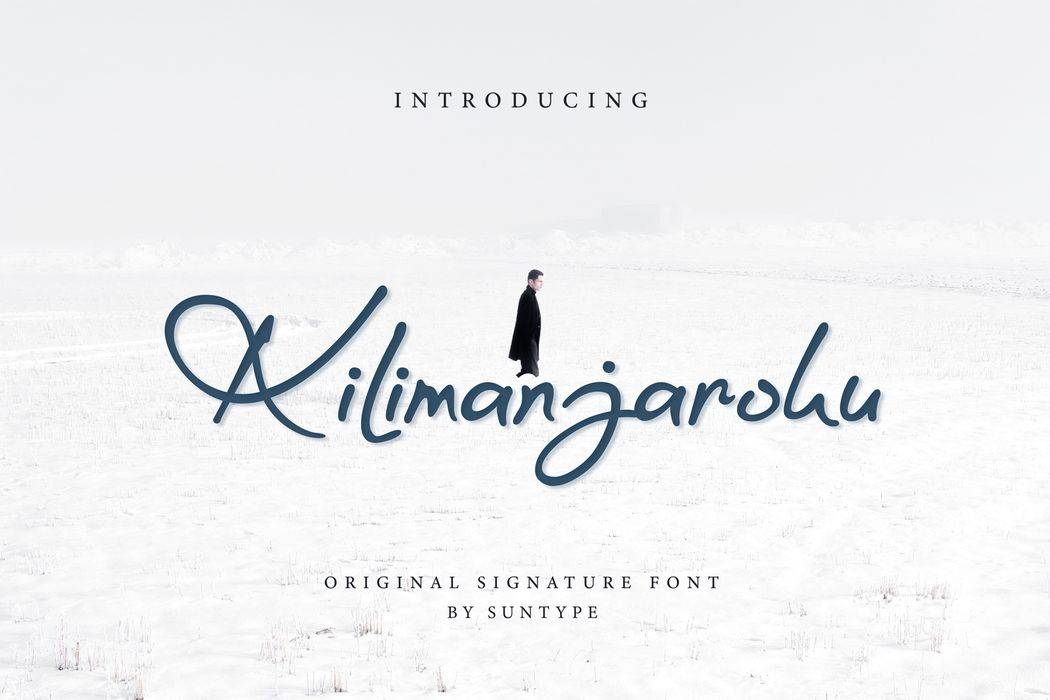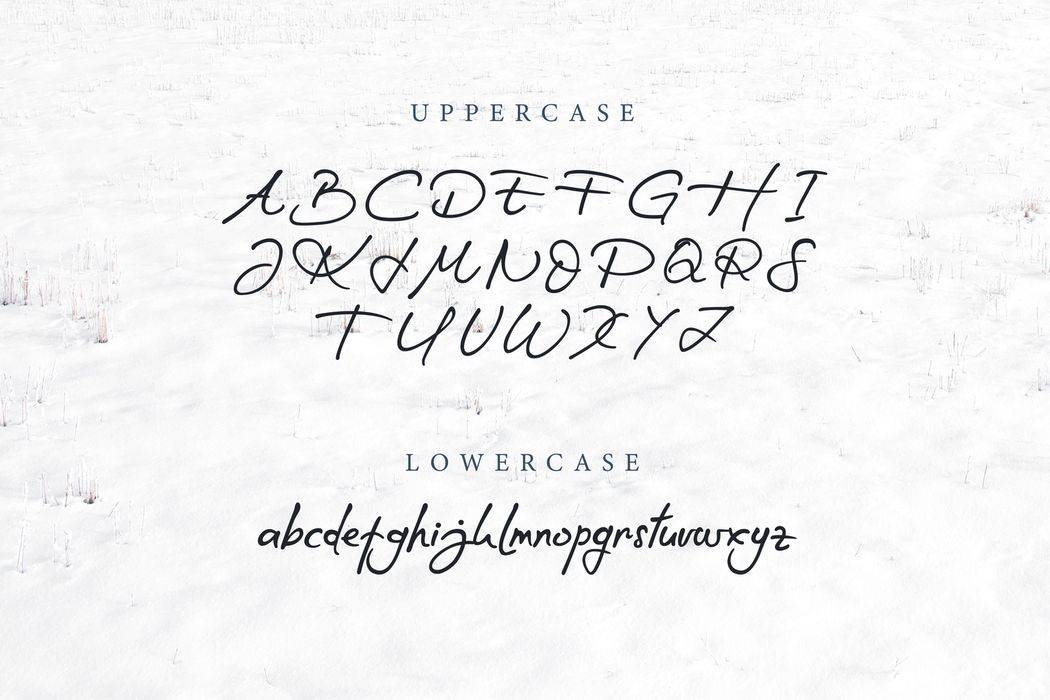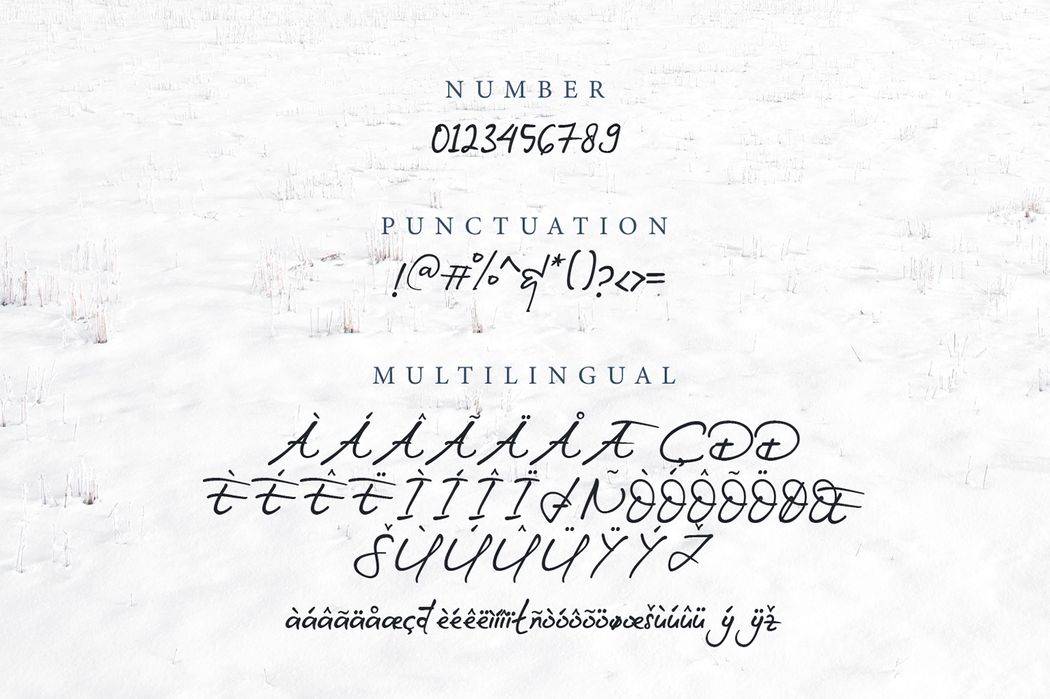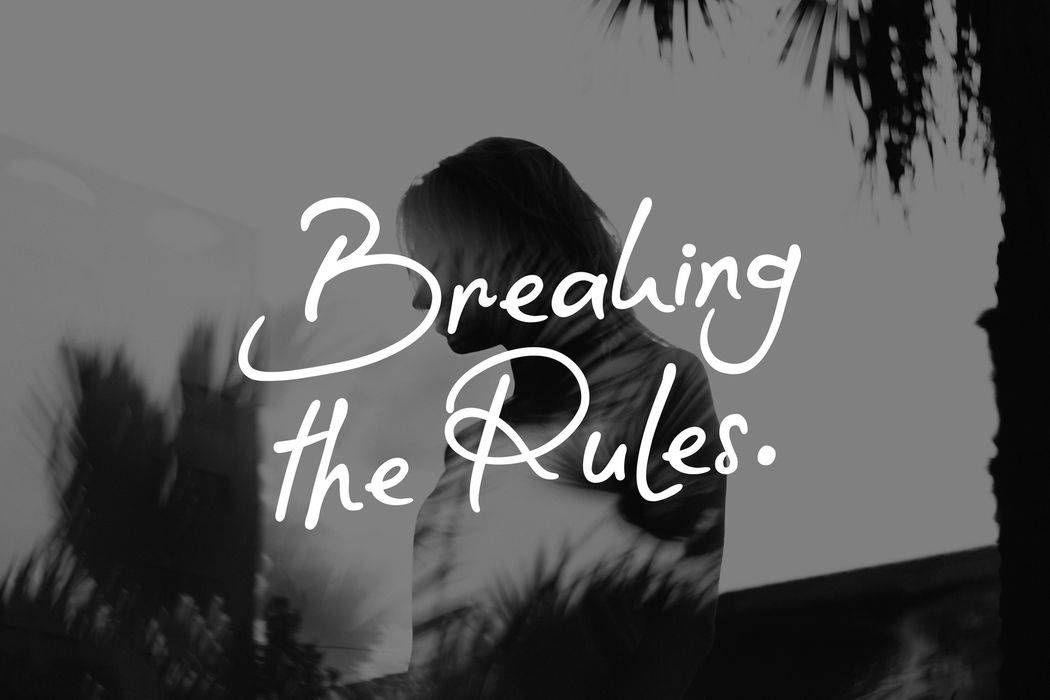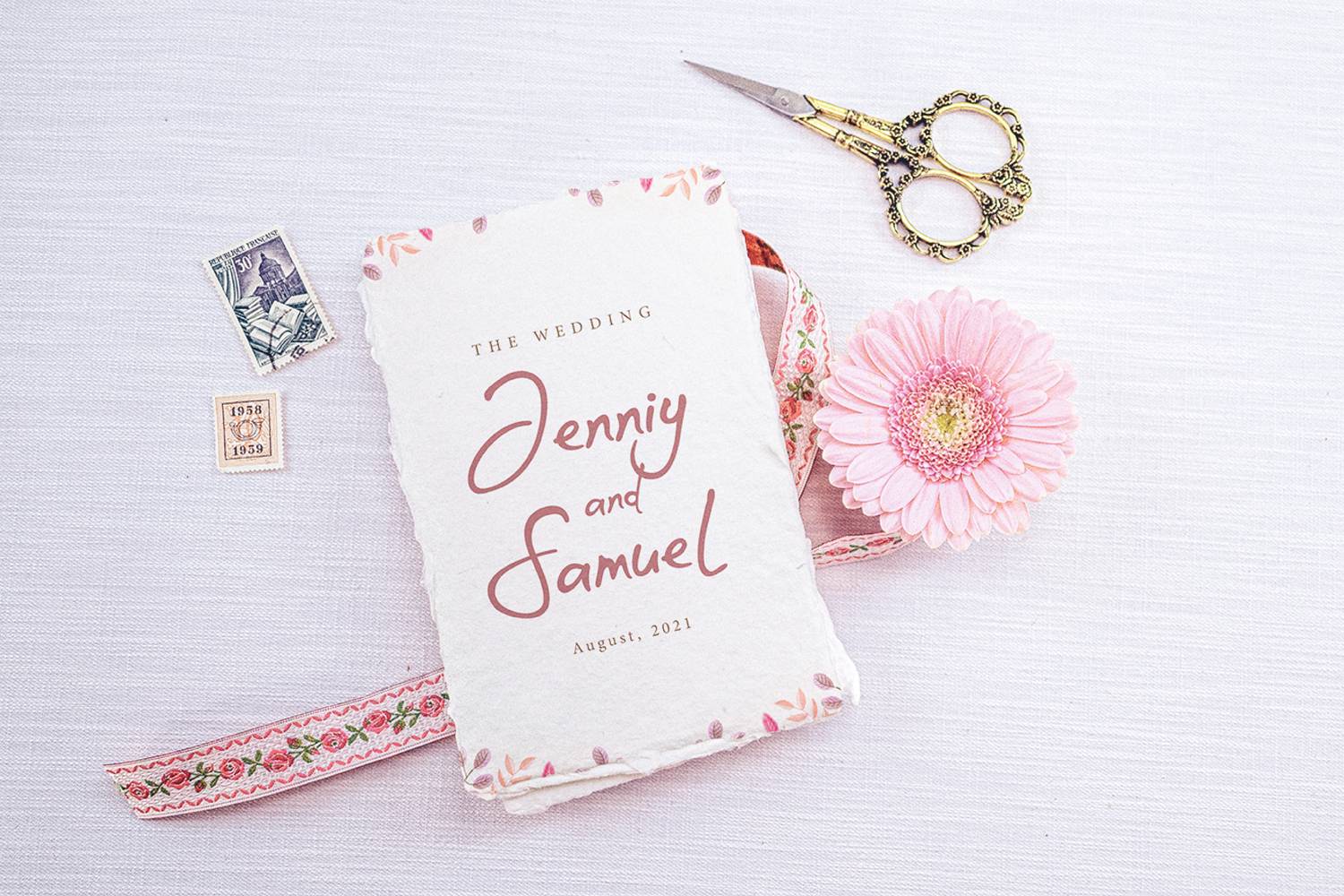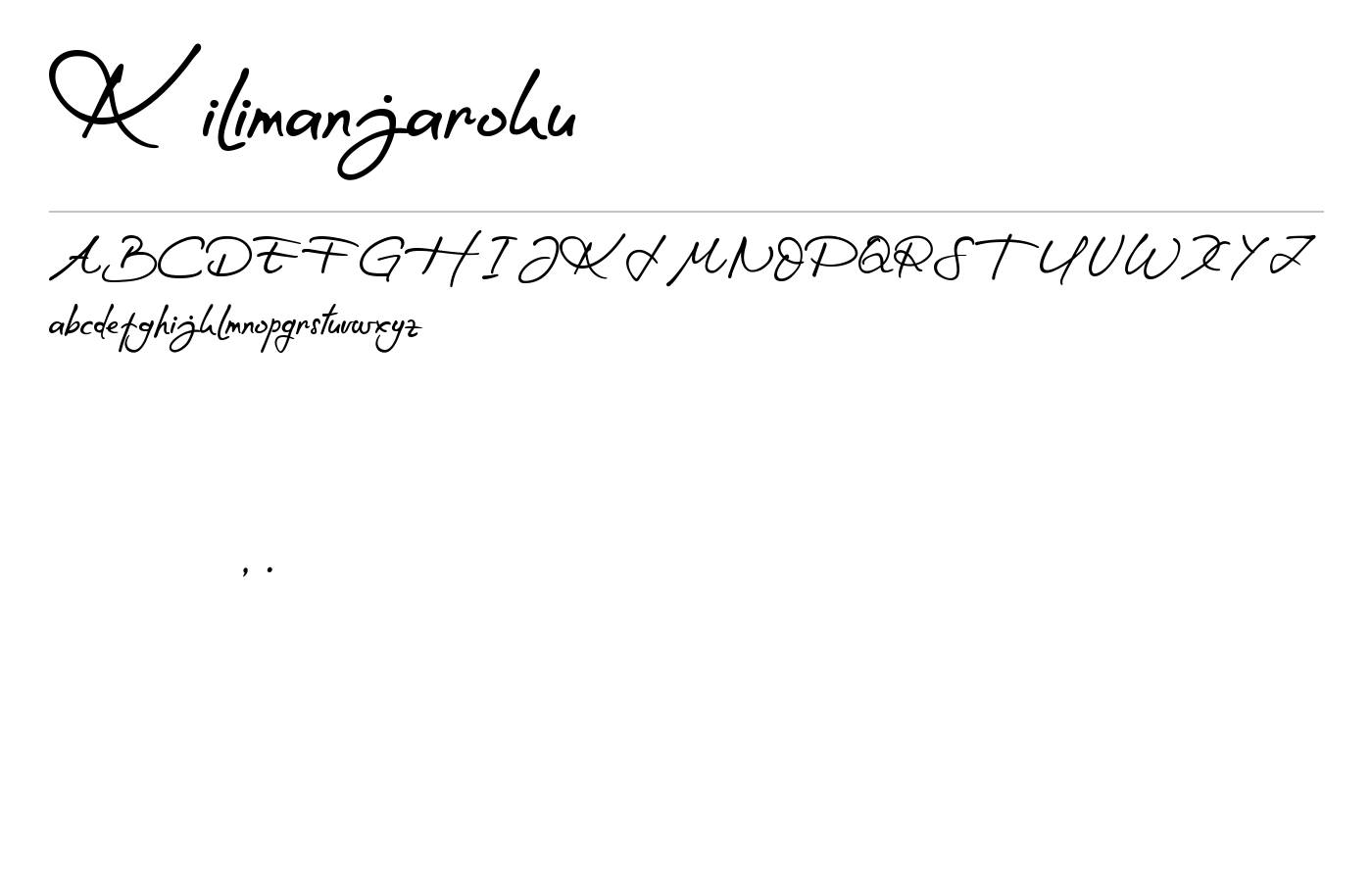
Kilimanjaroku is a delicate, handwritten script font characterized by its light weight and flowing, elegant strokes that mimic natural cursive handwriting. Its narrow letterforms, medium-high x-height, and whimsical loops give it a personal and creative feel, making it perfect for invitations, branding, and projects needing a warm, artistic touch. This font shines in designs where a friendly yet refined handwritten style is desired, adding a unique and intimate personality.
Kilimanjaroku Font
About Kilimanjaroku Font